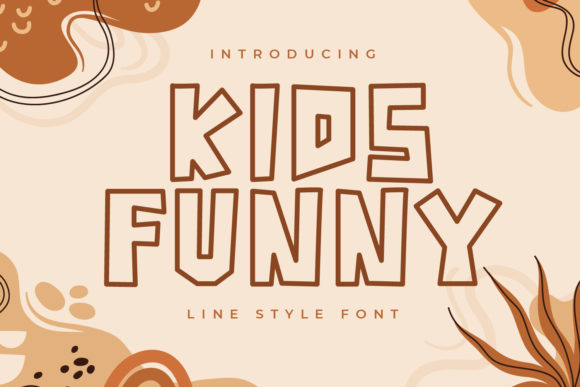
Introduce the Kids Funny Font, a unique and enchanting display font that adds a whimsical touch to any project. With its playful nature and handmade feel, this font exudes a sense of lightheartedness and joy, making it perfect for capturing the essence of childhood. Whether you're creating personalized invitations, designing cheerful posters, or crafting heartwarming greeting cards, the Kids Funny Font adds an irresistible charm that sparks smiles and spreads happiness.
Step into a world of laughter and delight as you discover the endless possibilities of the Kids Funny Font. Its cheerful strokes bring a touch of fun to any project, whether it's a school presentation, an eye-catching social media post, or an adorable birthday card. Let your creativity soar as you explore the playful energy and boundless charm of this delightful display font.
With Kids Funny Font at your fingertips, you'll find yourself grinning from ear to ear as you witness the magic it weaves. Its playful personality and captivating style make it the perfect choice for adding a dash of whimsy to your projects. Be it a charming logo, an unforgettable flyer, or an engaging website design, this font is sure to leave a lasting impression that'll bring a smile to faces.
Dive into the enchanting world of Kids Funny Font and let your imagination run wild. Its easy-to-read nature and versatile charm make it an exceptional choice for a wide range of projects, from cheerful children's books to vibrant packaging designs. Embrace the whimsical spirit of this font and watch as your creative visions come to life, leaving a trail of smiles and heartfelt connections in their wake.